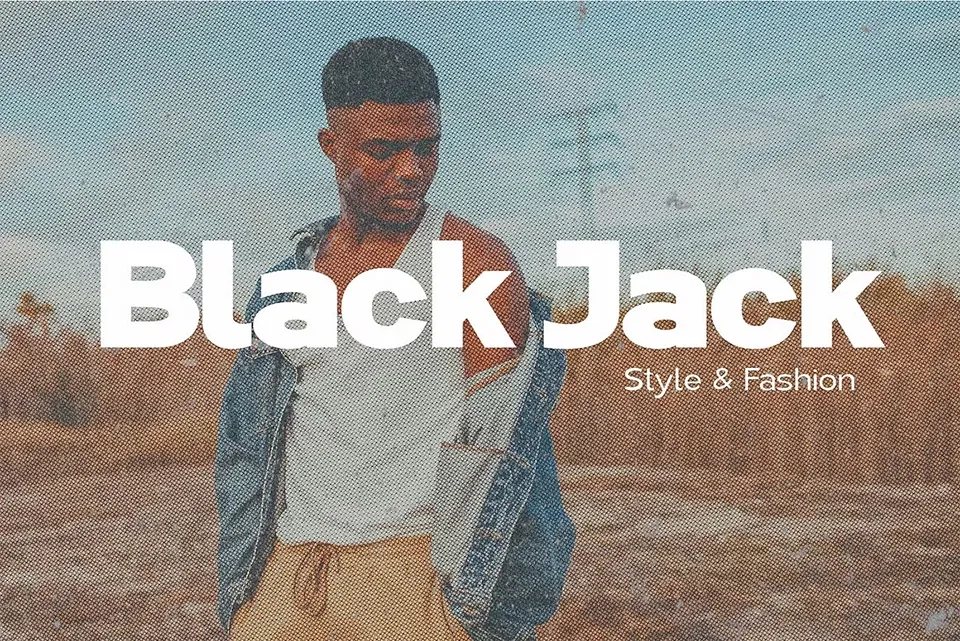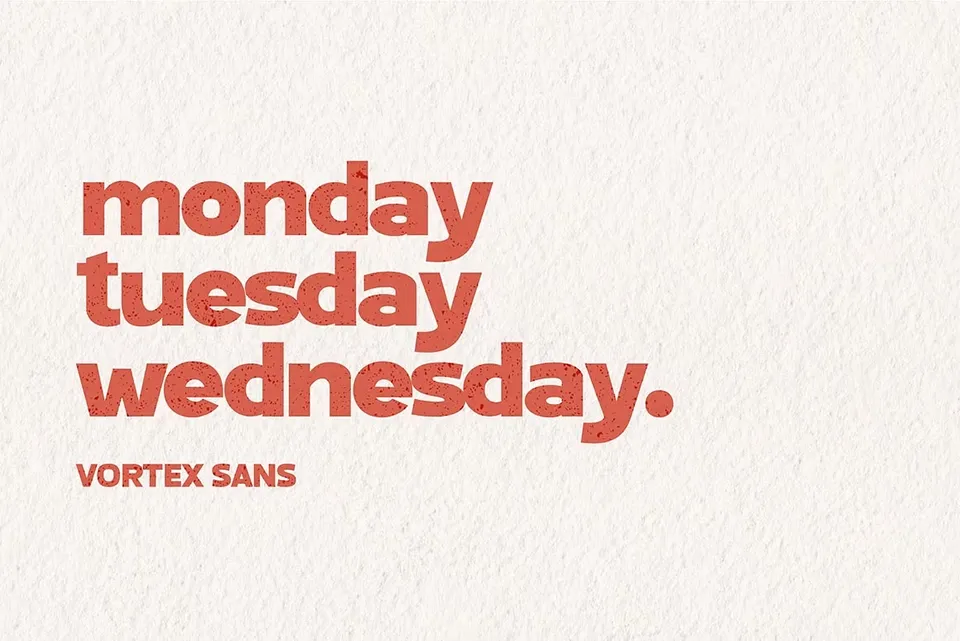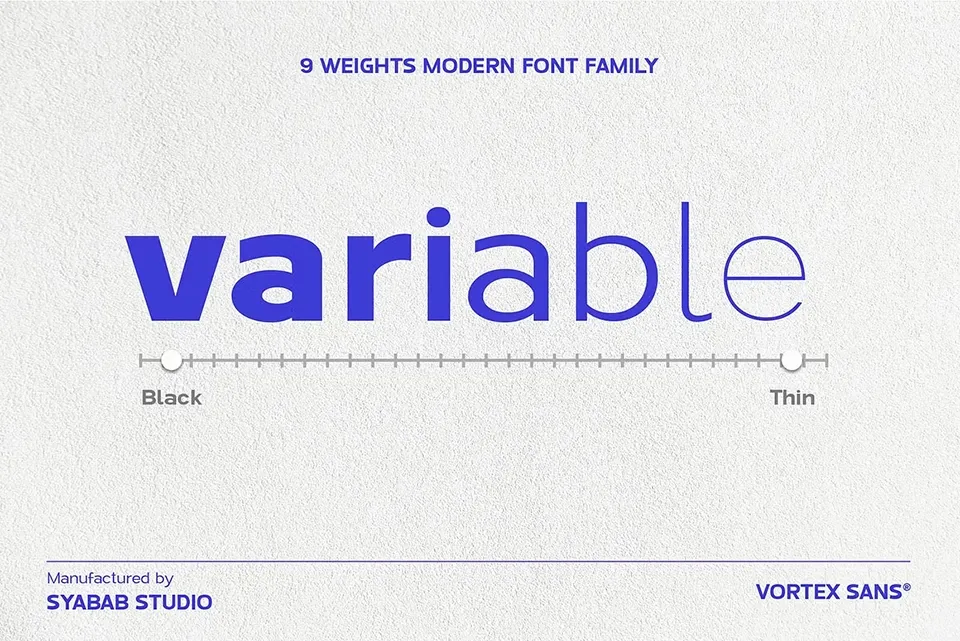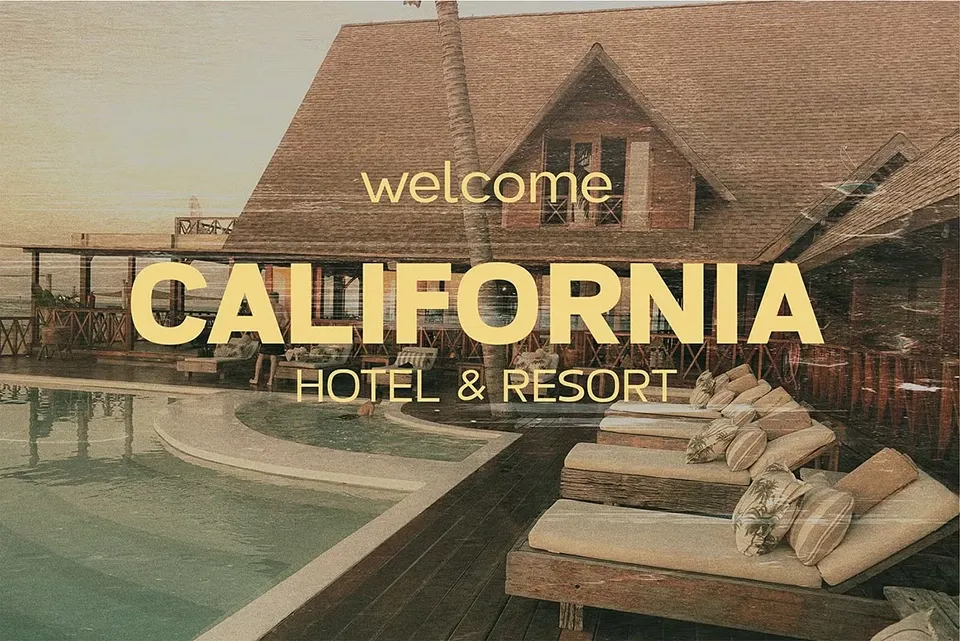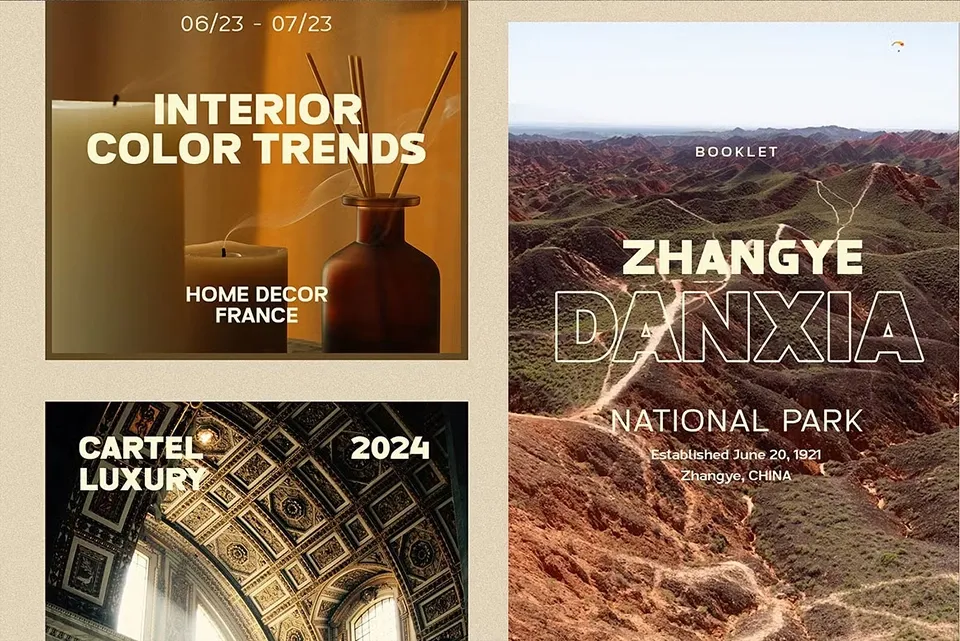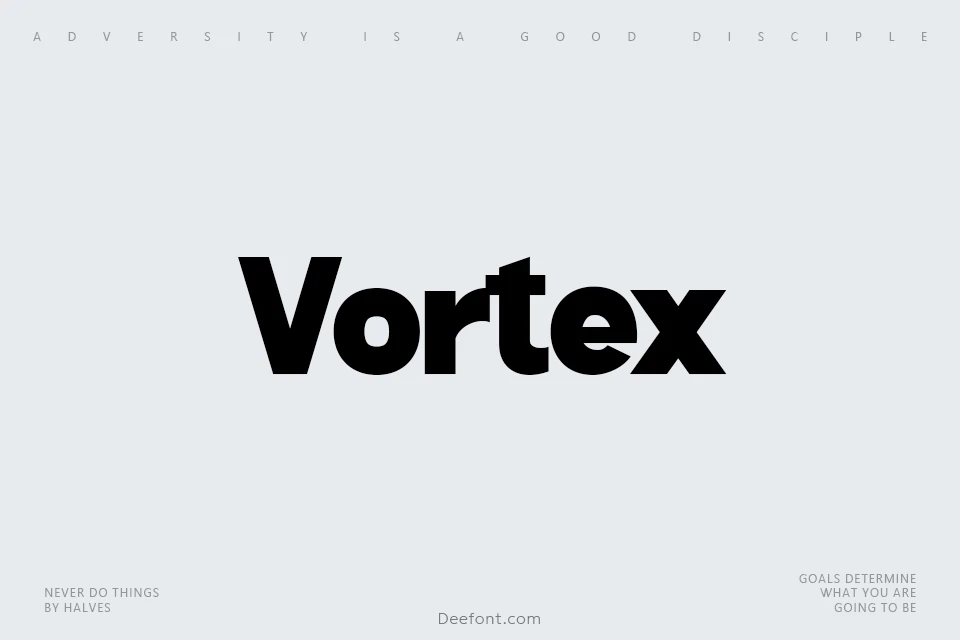
Vortex Sans Font Family
Vortex Sans Font Family is a modern typeface that comes in 9 weights. This clean, sans-serif typeface is designed for versatility, making it suitable for a wide range of projects, from branding to editorial design. Its contemporary aesthetic ensures readability while adding a touch of sophistication to any layout. With its various weights, Vortex Sans offers flexibility for creating emphasis and hierarchy, making it a valuable asset for designers seeking a modern and functional font.